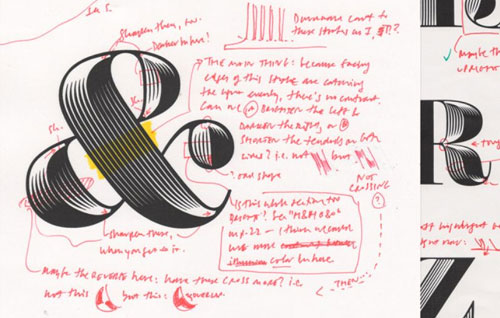
• A new typeface, designed by algorithms instead of by hand
Methods of type design have shifted over the years — from moveable type printing presses to copper plate engraving to modern design software — but fonts are still largely created by hand. And with globally successful fonts containing nearly 600 characters in various languages, a single typeface with several weights and styles can take a year or more to design.
Now, design company Hoefler & Co., which names Nike, Starbucks, and Barack Obama among its clients, has figured out a way to expedite the process: algorithms. Company founder Jonathan Hoefler and Andy Clymer, senior designer at Hoefler, told Wired algorithms can start doing some of the work that previously fell to designers. This is true especially for ornamental fonts. Their vectors — graphic pathways that shift an image around stable points — must not only determine the curves of the letters, but also dimensions and lighting.
The first font to get this treatment is Obsidian, a decorative, three-dimensional font inspired by the ornamental look of old maps. To give the font a contemporary feel, Clymer and Hoefler began with a popular type called Surveyor, and built Obsidian using its preexisting structure. Then they designed an algorithm which would rapidly light the 3D typeface and create the shadows necessary to show dimension. Because Obsidian was created in a virtual environment capable of simulating light on any letter in the set, the designers were freed from the task of painstakingly drawing shadows on each character. "[Obsidian] is sort of computationally driven, it really has that kind of texture and dimensionality," Hoefler says. "For us it’s a whole new way of thinking about letters as a generative process."
The algorithm does fall short on one important mark: multiple use. Hoefler says the next challenge is how to re-use the algorithm without creating the same font. Because Obsidian’s dimensions are computer-generated, its gradients are made up of digitally pinpointed pixels, not hand-crafted shadows, leaving less room for unique variations. And that’s where humans still have an advantage. The glacial process of type design, in which designers must individually tweak and nudge vectors to their liking, prevents the creation of exact replications — something the algorithm can’t yet do.